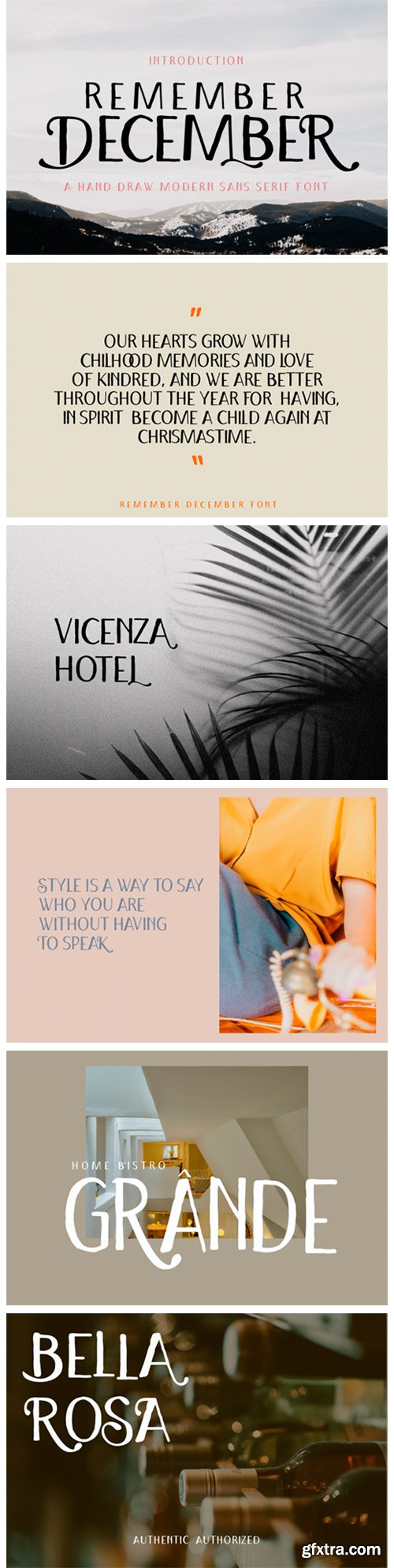
Remember December Font
Remember December is a natural and modern display font. It has a casual, yet elegant touch. It can be used for various purposes such as logos, wedding invitations, headings, t-shirts, letterhead, signage, labels, news, posters, badges and so much more.